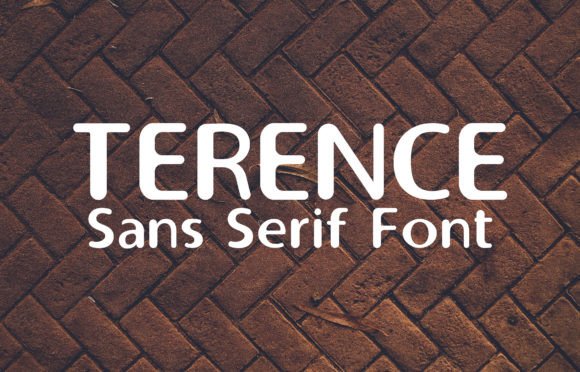
Terence Font
Behold Terence Font, the crème de la crème of sans serif fonts, a creation of Cool Worker, a name synonymous with typographic brilliance. Terence is not just a font; it's an experience, an expression of your unique style and creativity.
Picture this: You're working on a branding project, and you need a font that exudes warmth and approachability. Terence steps up, its friendly curves and open forms inviting customers to engage with your brand. It's the perfect font to create logos that resonate, leaving a lasting impression on your audience.
Now, let's talk about magazines. Terence is a natural choice for crafting captivating headlines and articles that demand attention. Its clean lines and high legibility ensure that your words shine, making your magazine a must-read for your target audience.
And oh, the world of films! Terence adds a touch of cinematic charm to your moving pictures, whether it's through title sequences or credits. Its timeless elegance elevates every scene, immersing viewers in your visual masterpiece.
But Terence's versatility doesn't stop there. It's equally at home in holiday cards, spreading joy and cheer with its festive flair. Wedding invitations adorned with Terence exude romance and sophistication, making your special day even more memorable.
And let's not forget about quotes and advertisements. Terence has a knack for turning ordinary words into thought-provoking statements. Its ability to convey emotions and messages with clarity and impact makes it the perfect choice for creating marketing materials that leave a lasting impression.
Terence is more than just a collection of letters; it's an invitation to unleash your creativity. Whether you're a seasoned designer or just starting, Terence empowers you to create designs that captivate, inspire, and leave a lasting impression.